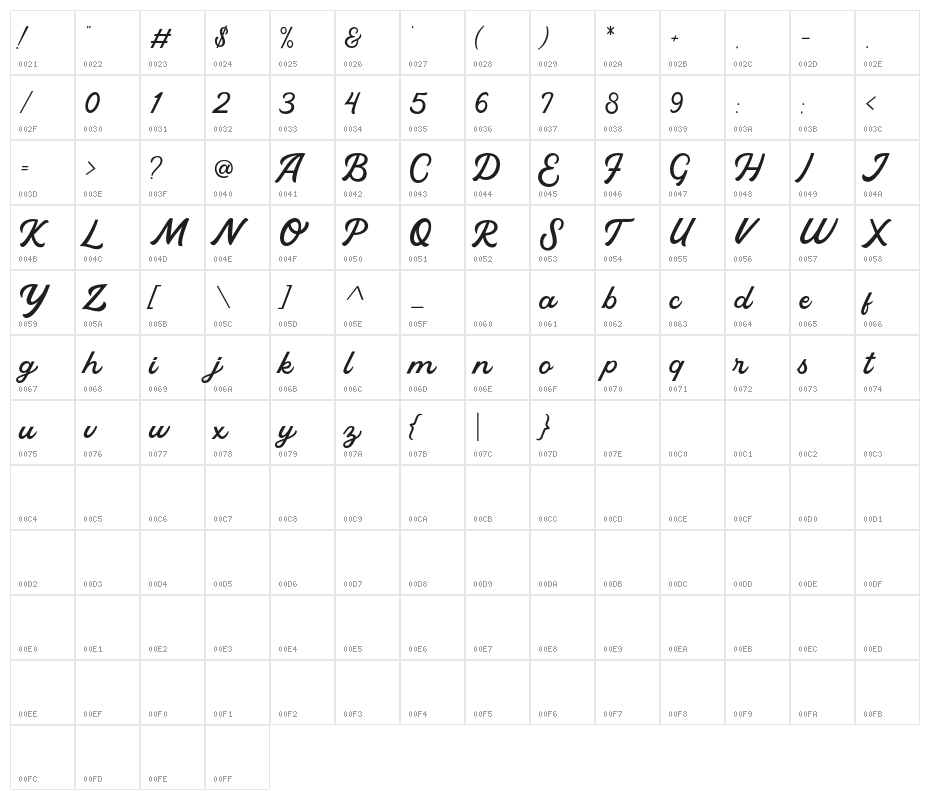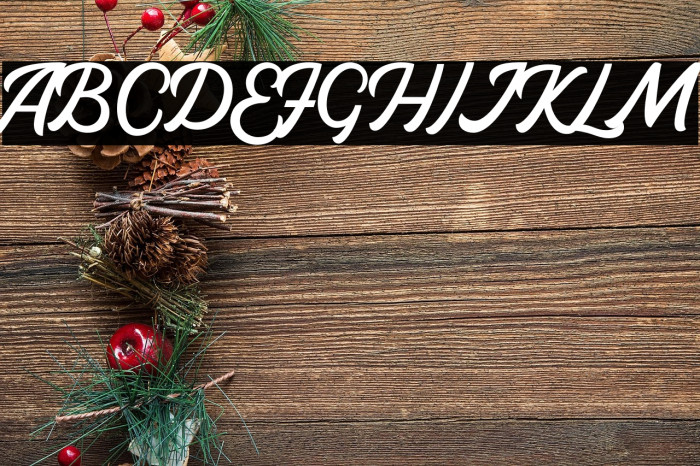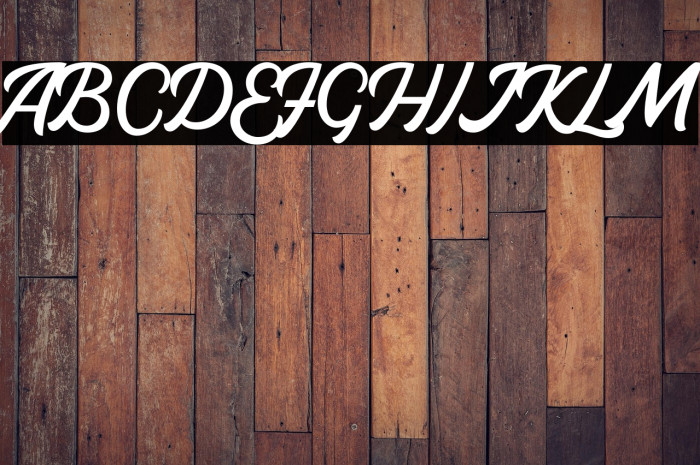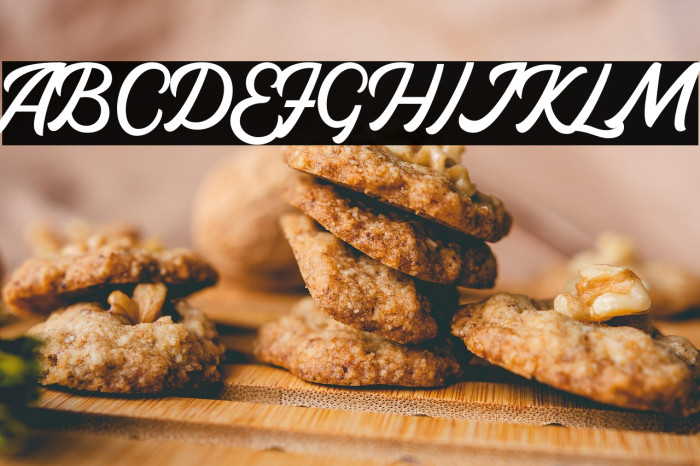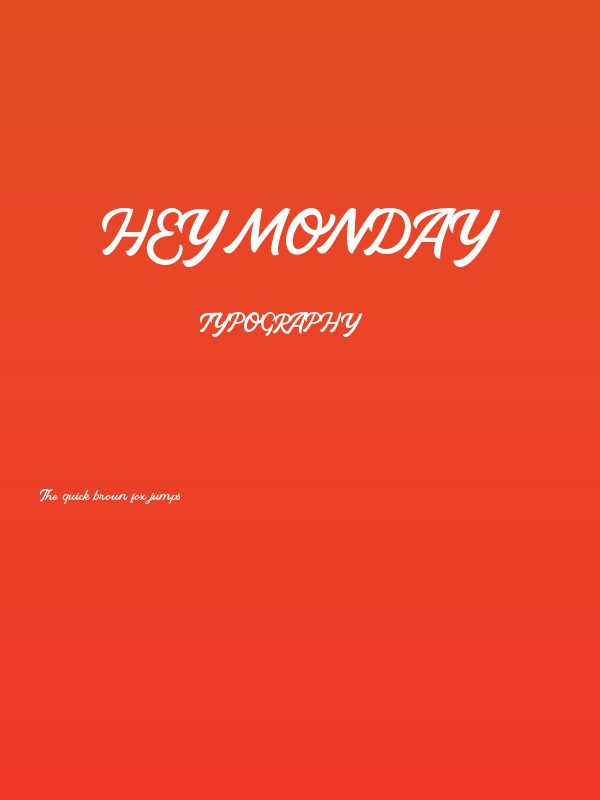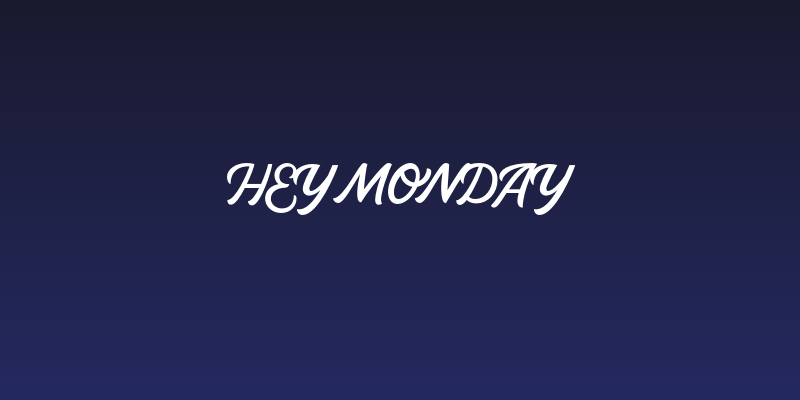
HeyMonday Font
| Gesamtstil | Classic |
| Anwendungsfall | Logos, Invitations, Personal Branding |
| Vorgeschlagene Projekte | Ideal for wedding invitations, greeting cards, personal branding, and elegant logos. |